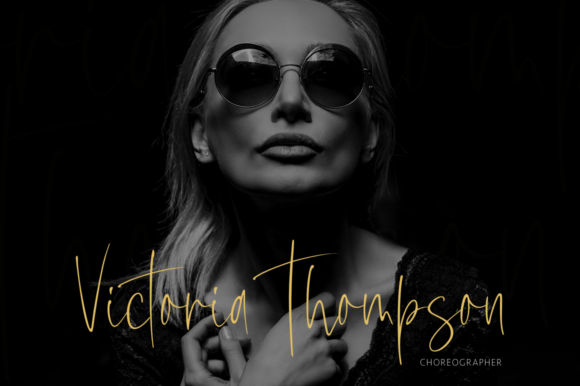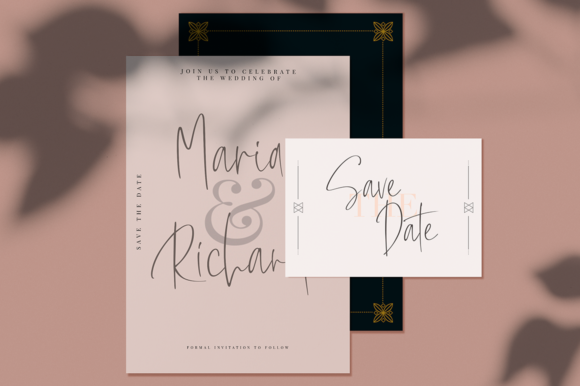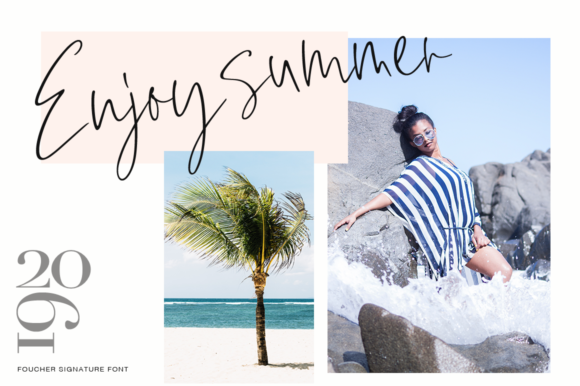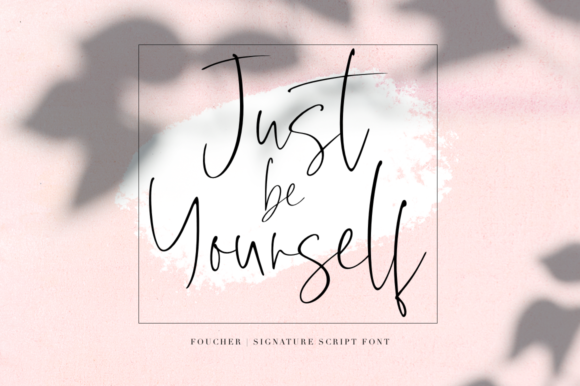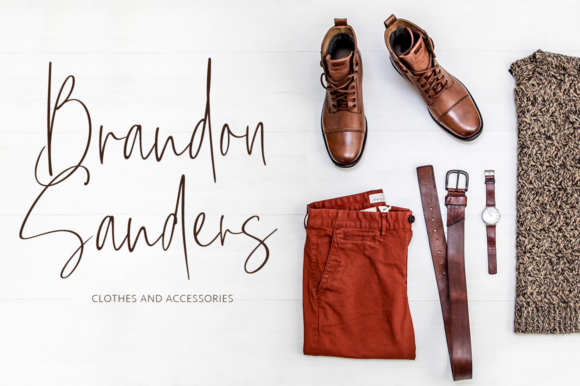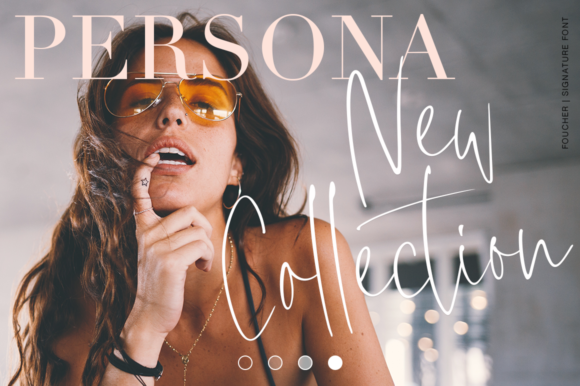
Introduction to Foucher Font
Foucher is a thin and bouncy script that’s perfect for adding a personal touch to any modern design project.
Foucher is a thin and bouncy script that’s perfect for adding a personal touch to any modern design project!